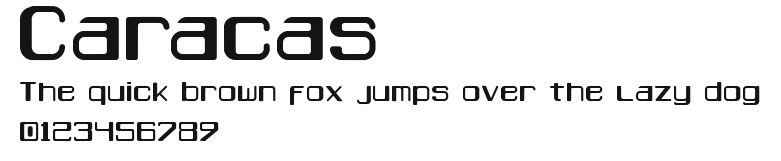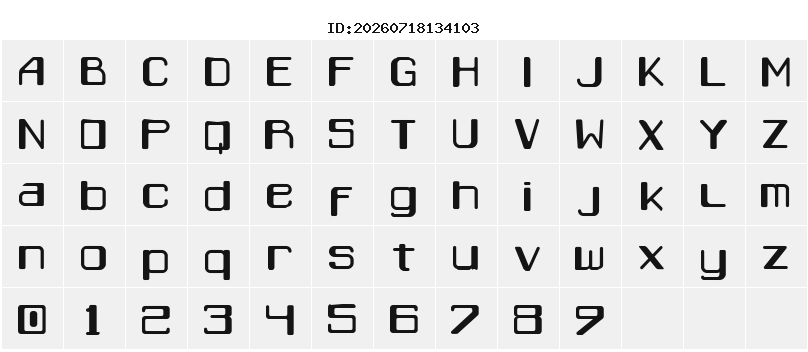
• Font Name: Caracas
• Font Style: Caracas
• Full Font Name: Caracas
• PostScript Name: Caracas
About Caracas.ttf
Caracas.ttf is a modern, elegant sans-serif font designed for ultimate readability and visual harmony. Perfect for branding, headlines, web design, and print materials.